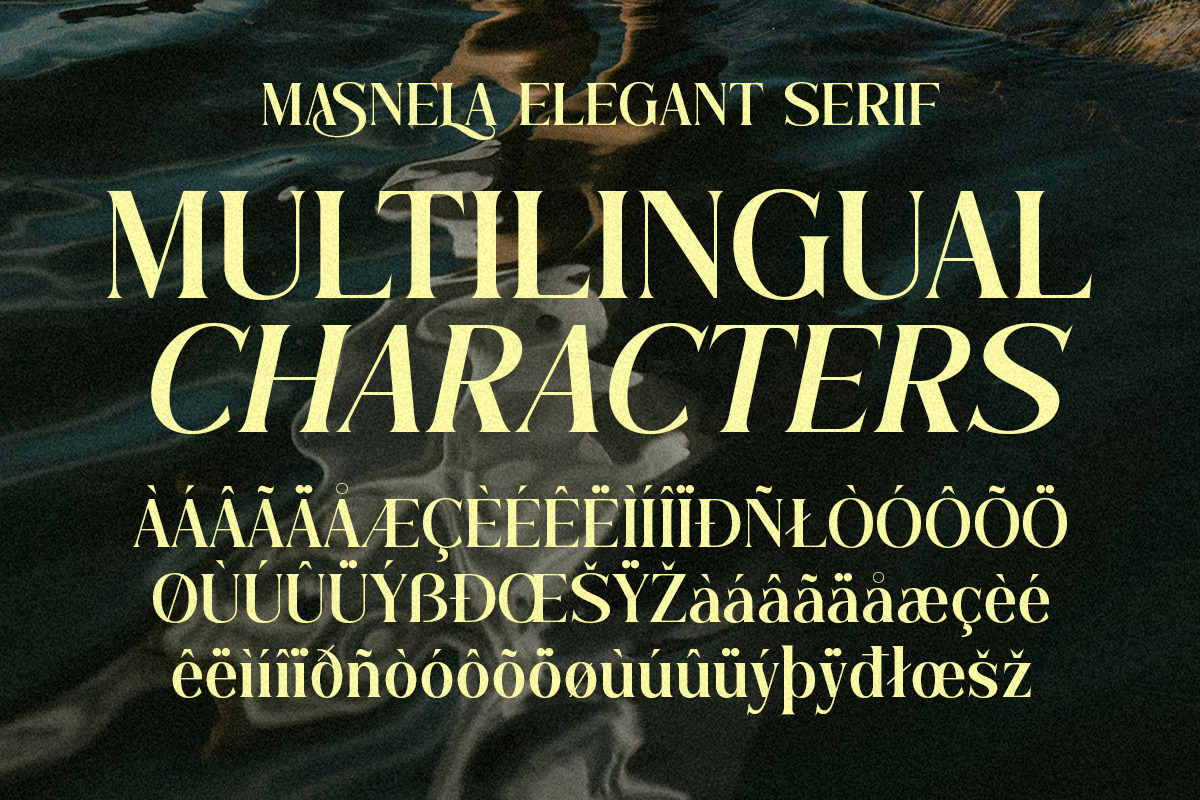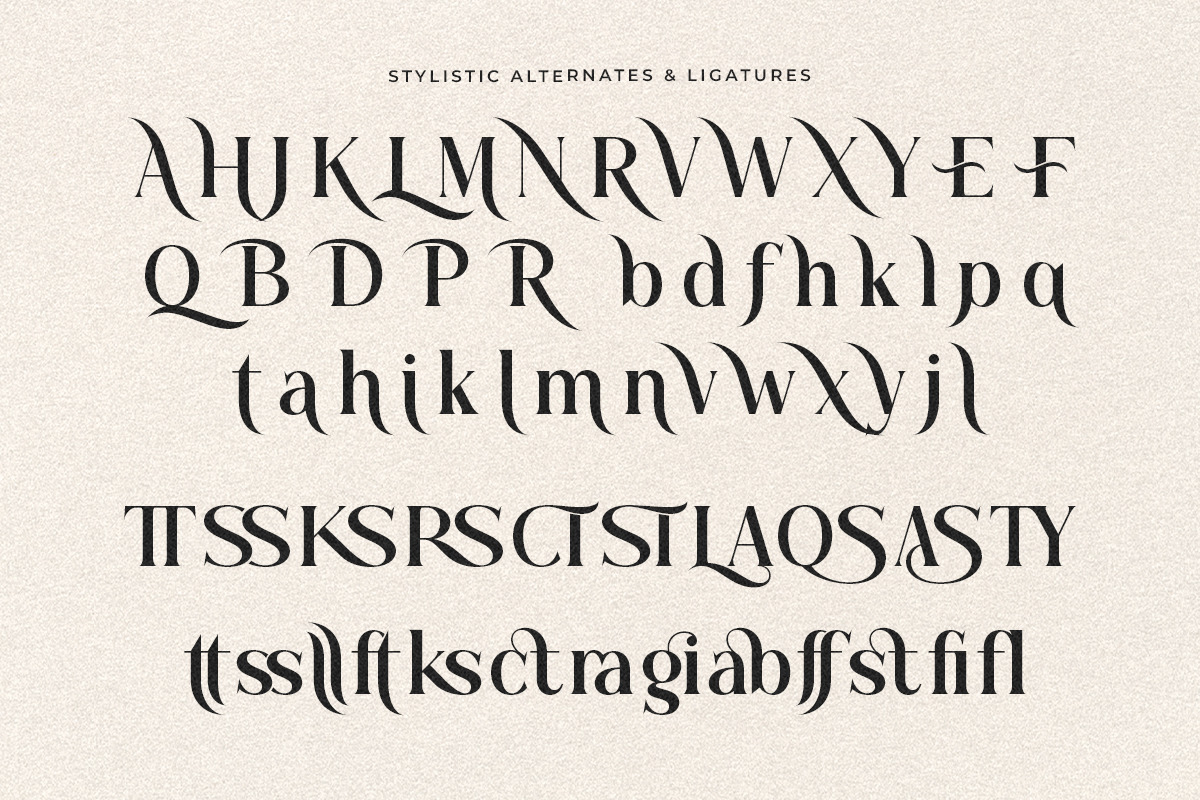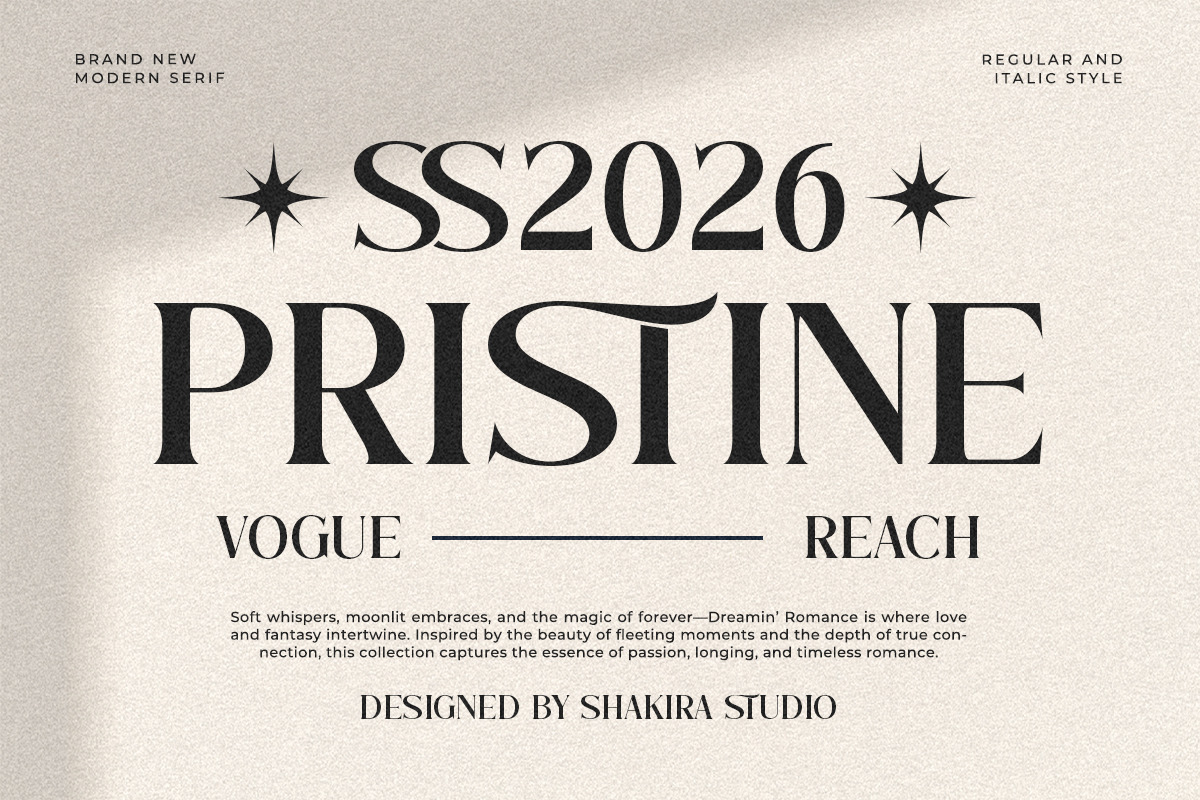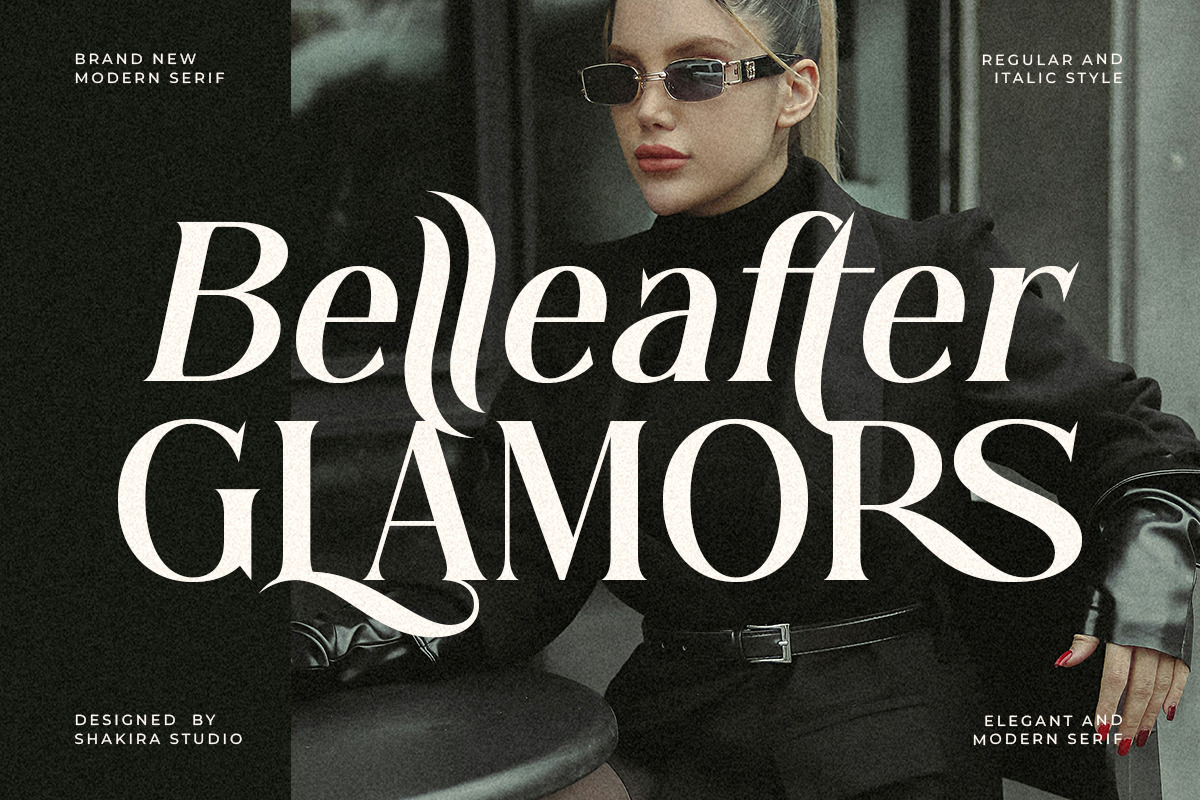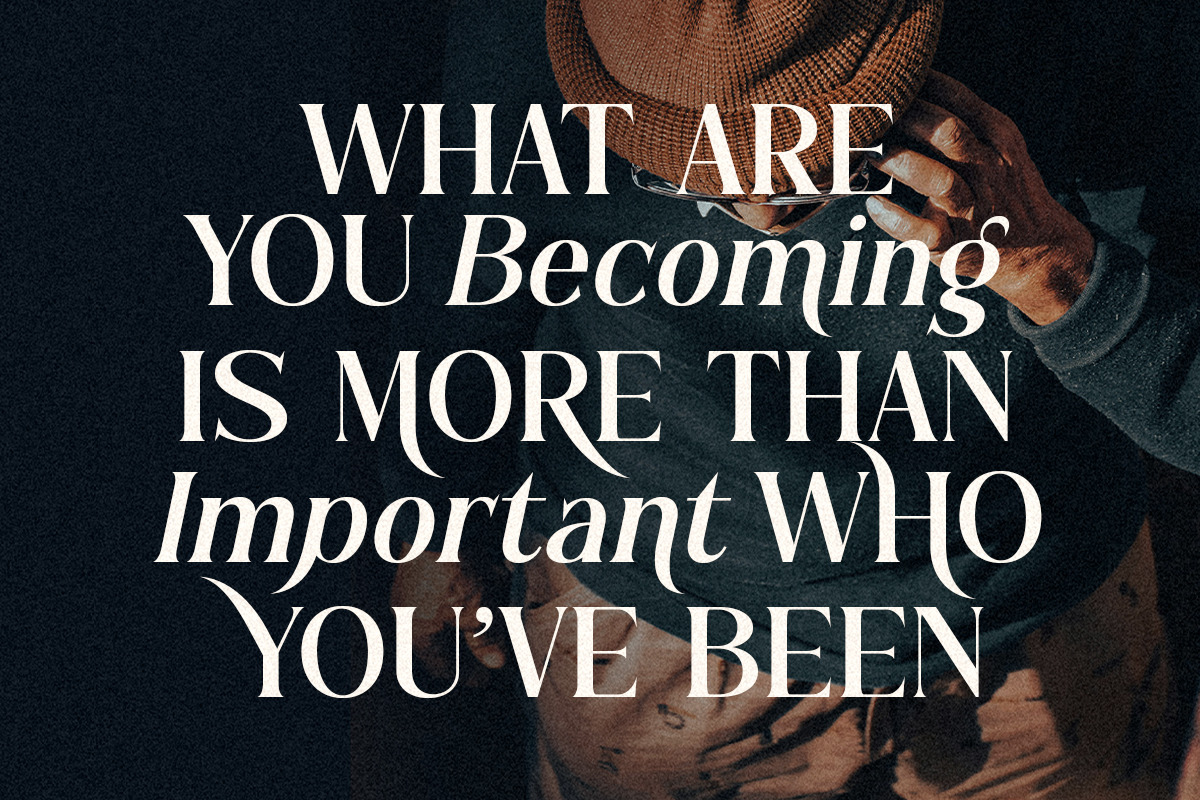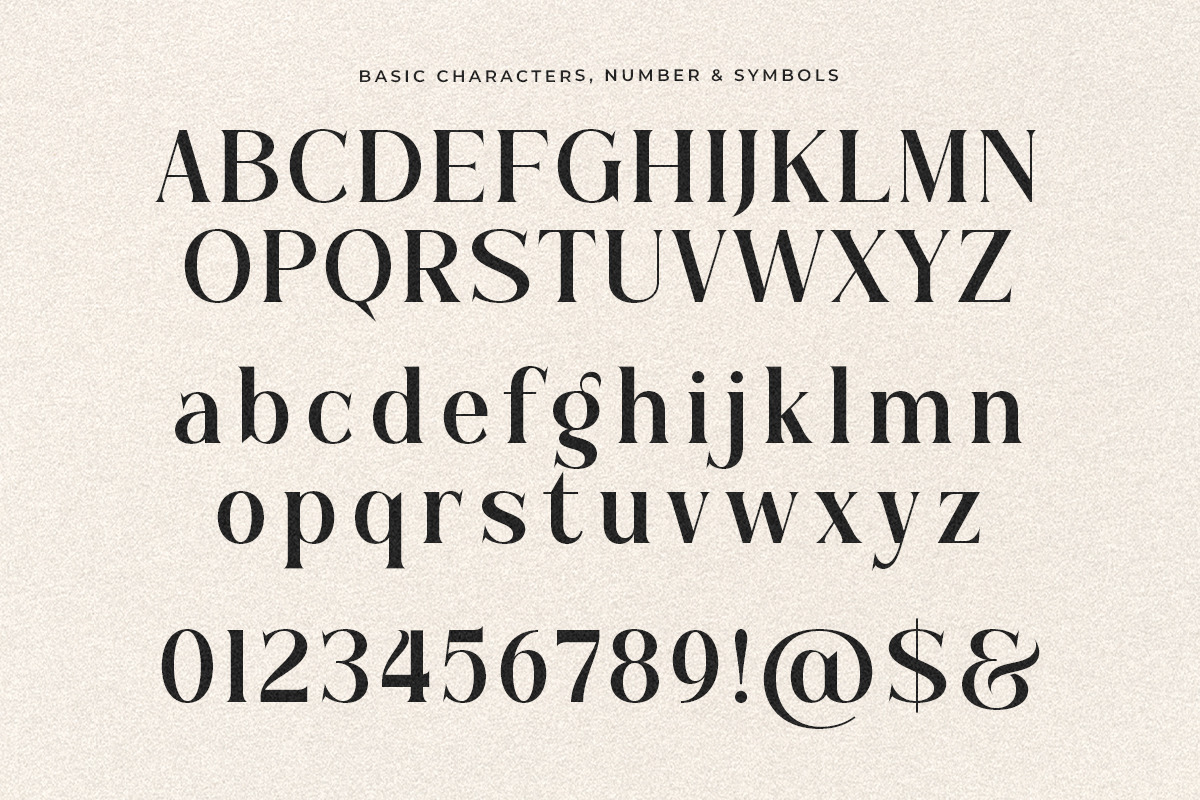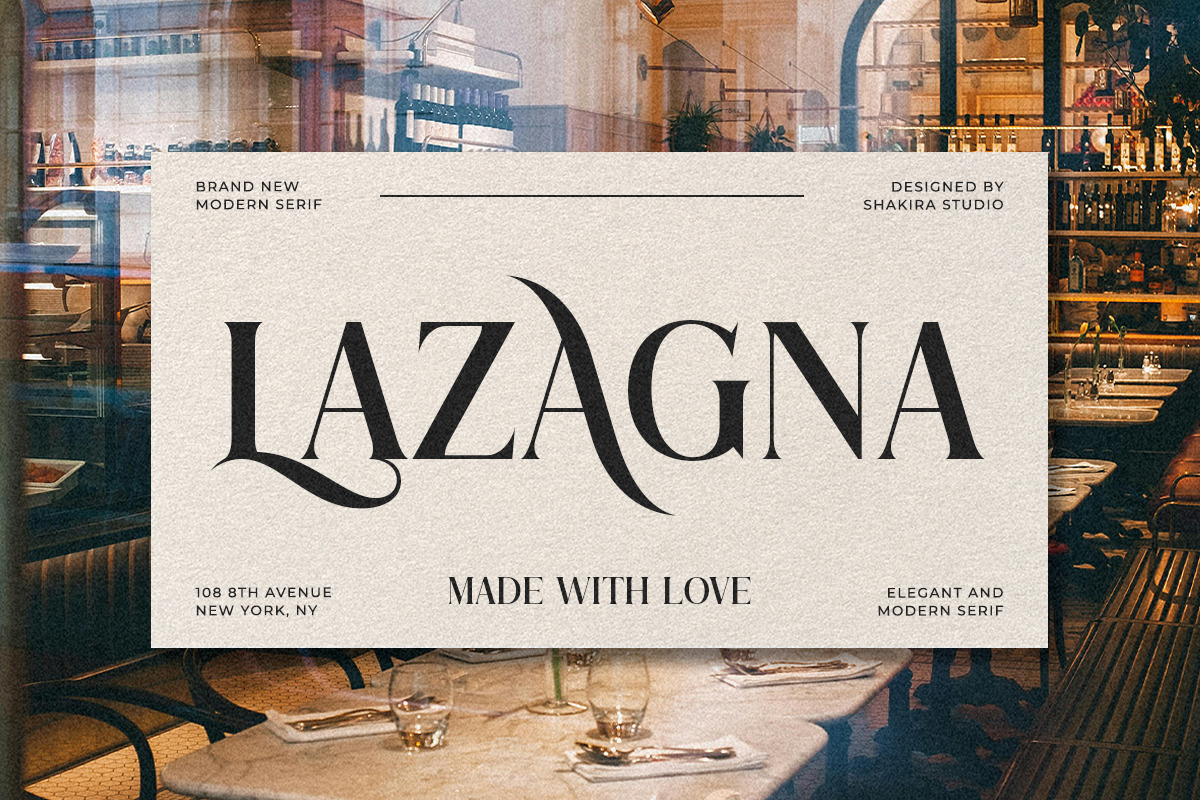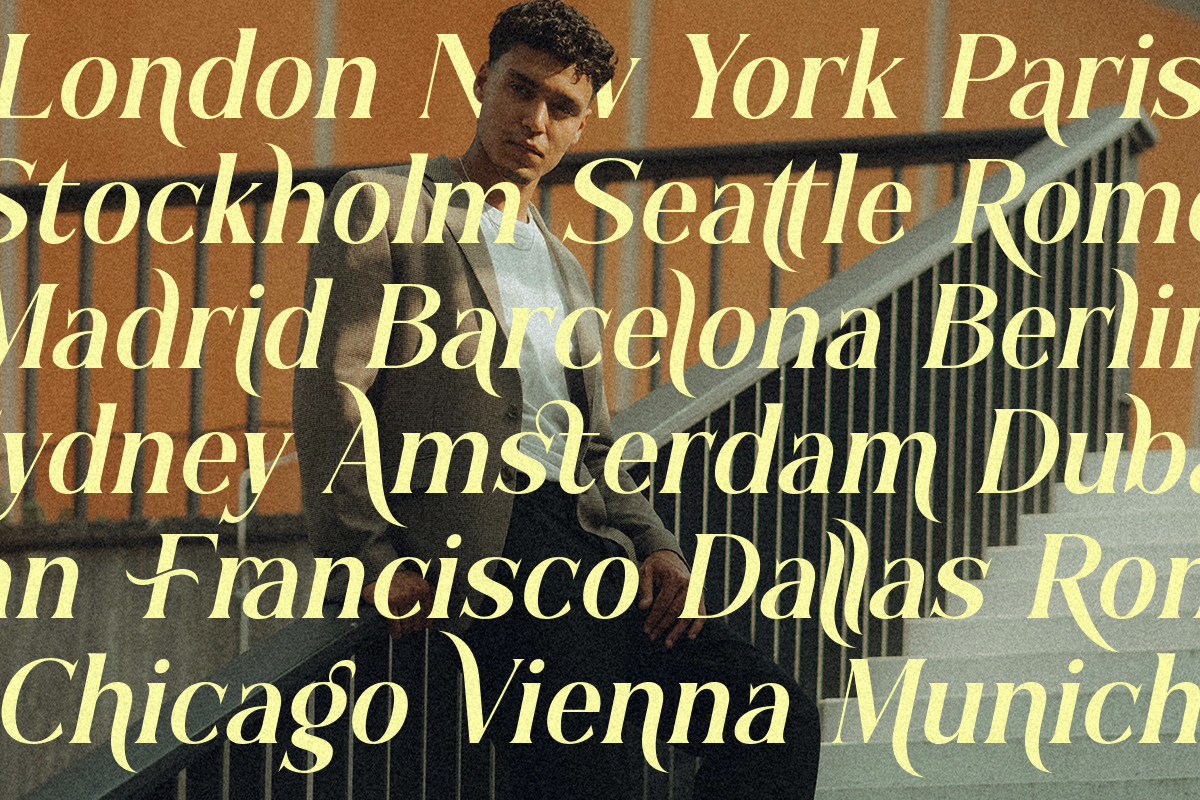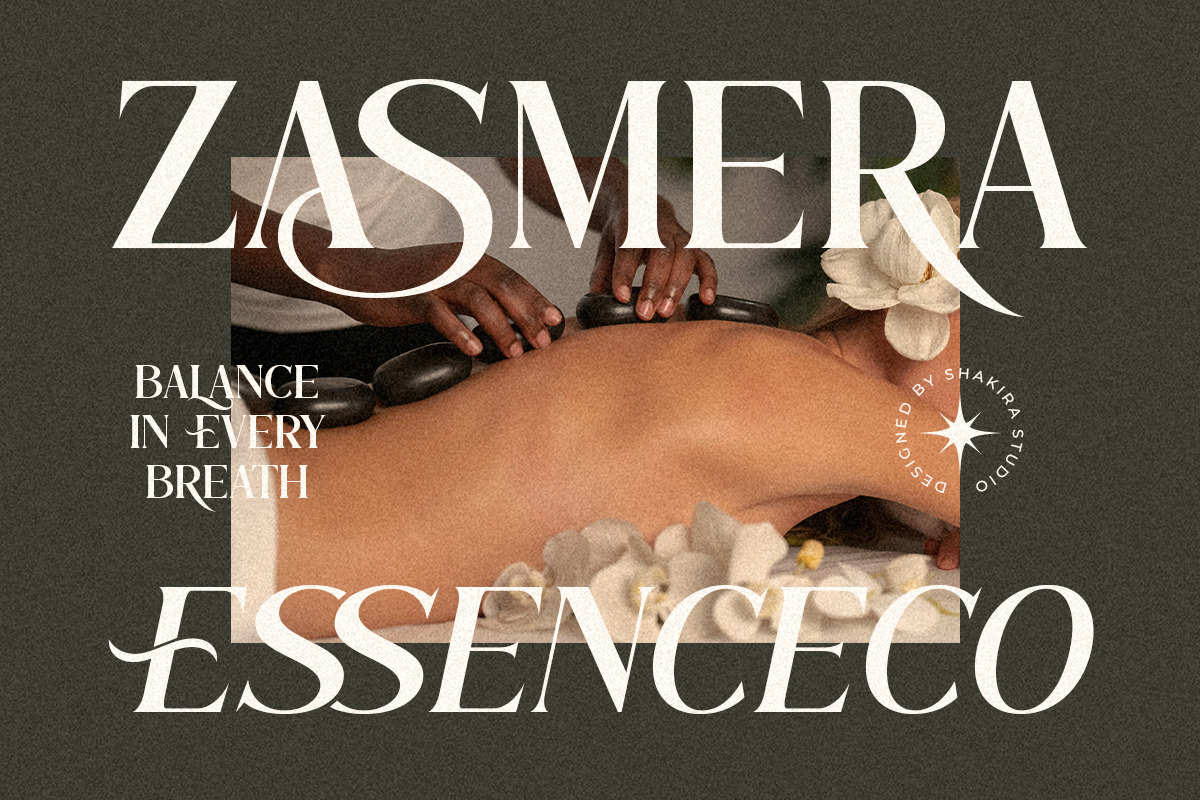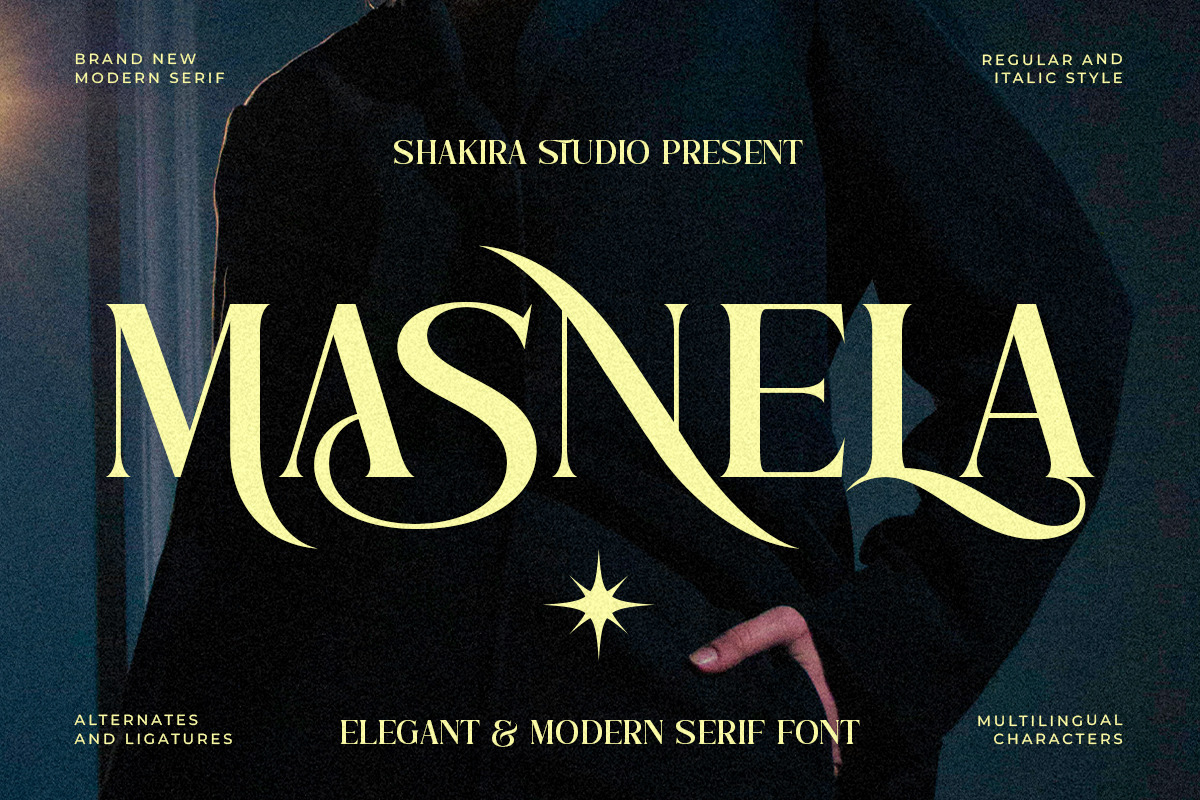
Masnela - Elegant Serif Font
Introducing Masnela – a sophisticated modern serif font with graceful curves and refined character. Masnela blends classical structure with contemporary details to create a font that radiates luxury and style. From high-contrast strokes to elegant ligatures, every glyph is crafted for premium impact.
Perfect for designers seeking a typeface with presence, polish, and premium aesthetic.
Whether you're designing fashion lookbooks, logo identities, wedding invitations, or editorial headlines – Masnela provides a high-end voice that commands elegance and clarity.
- Gorgeous alternates & ligatures
- Regular & italic styles
- Fashion branding & luxury packaging
- Editorial titles & magazine spreads
- Wedding suites & invitation design
- Website hero text & blog headers
- Personal branding & social media graphics
- Classy logos & upscale stationery